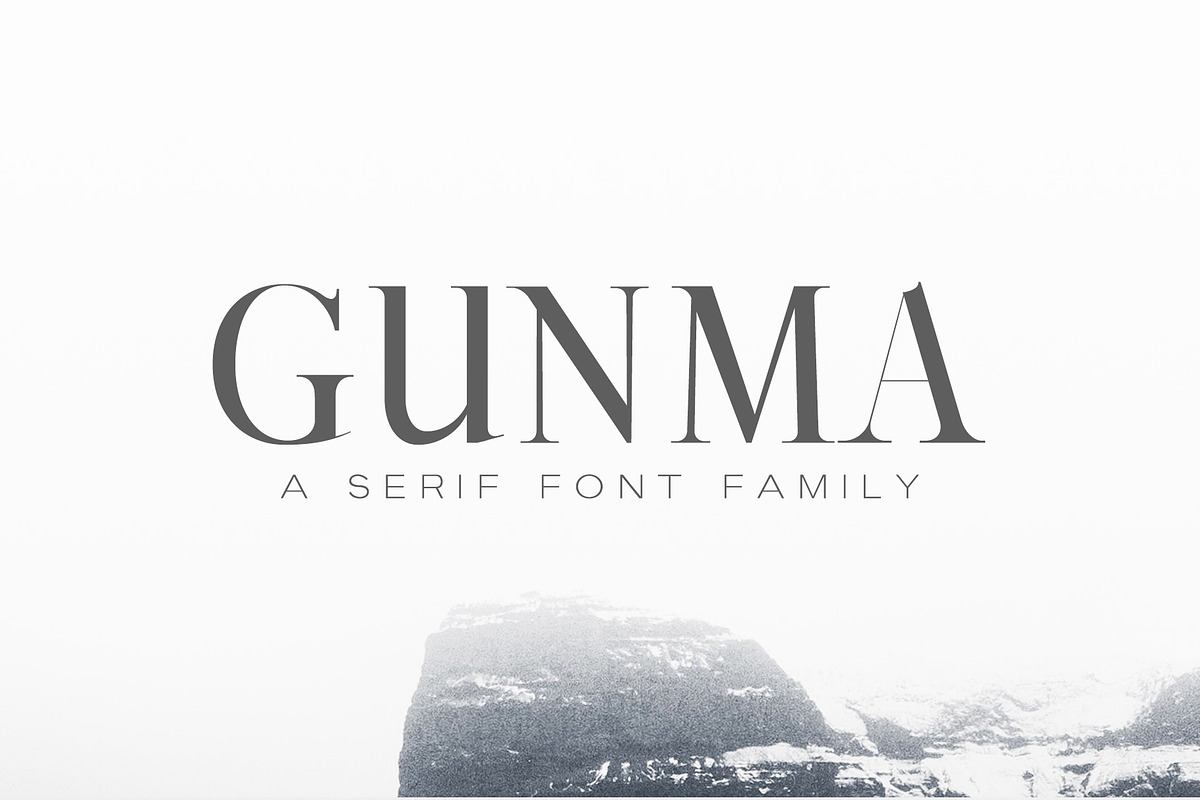
Gunma Serif Font Family Free Download is a refined and versatile typeface collection that combines classic serif elegance with a clean, contemporary touch. With its balanced proportions, sharp serifs, and smooth curves, Gunma is perfect for editorial layouts, branding, packaging, websites, and professional presentations.
The Gunma Serif Font Family Free Download includes multiple weights and styles, allowing for seamless typographic hierarchy and design flexibility. Whether you're creating luxurious headlines or elegant body text, Gunma offers excellent readability and visual harmony across both print and digital mediums.